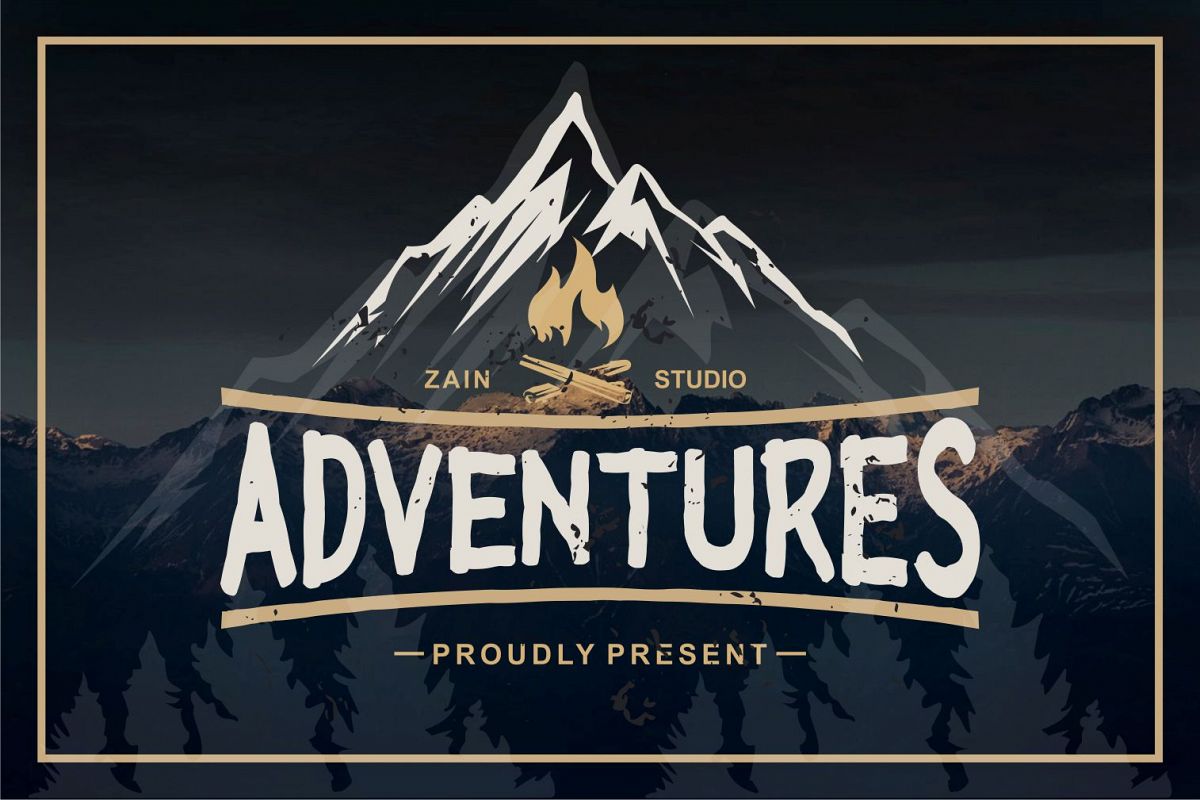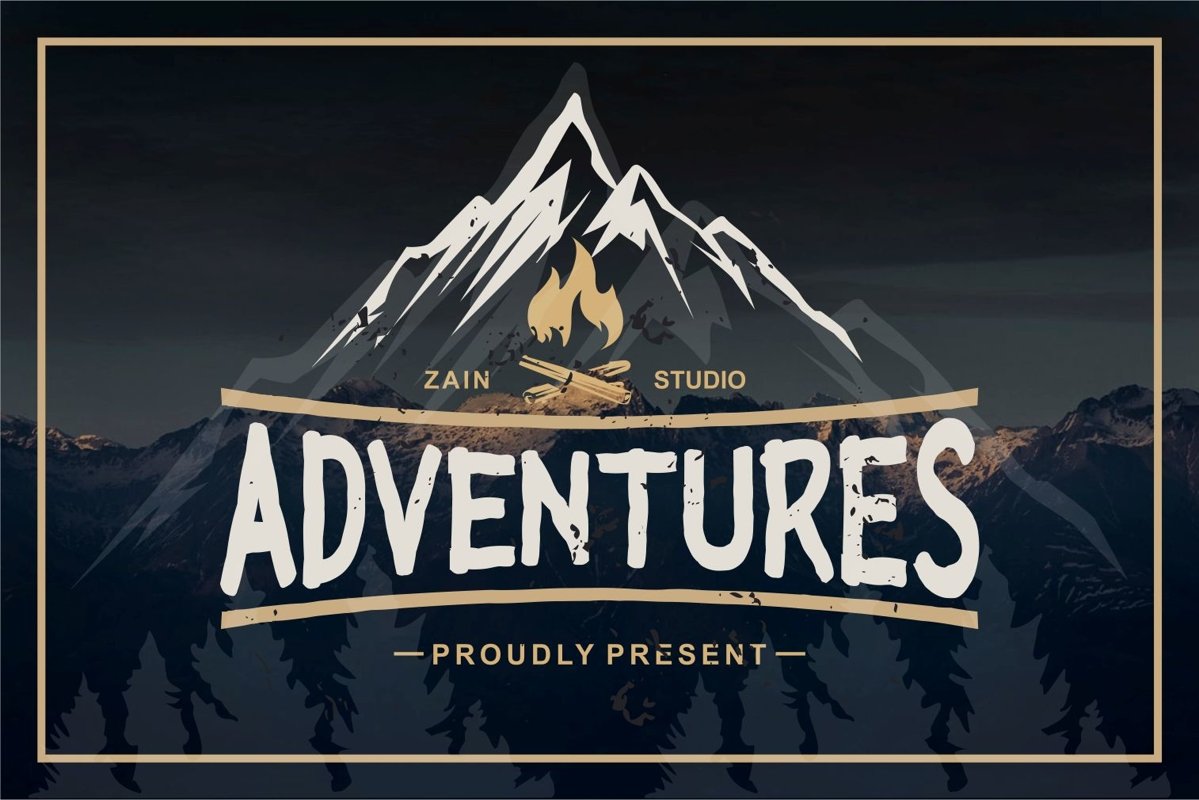
Created By ZainStudios
Adventures
Introducing ADVENTURES Font
new handmade allcaps fonts ADVENTURES.
Designed with a brush and rough style.
You can use this font for various purposes such us poster, t-shirt, headlines, cover design, logo, quotes, and all for display purposes.
ADVENTURES combines attractive curves with a fresh urban edge; delivering a stylish script which is guaranteed to add an eye-catching appeal to your logo designs, brand imagery, handwritten quotes, product packaging, merchandise & social media posts
Detailed dry brush